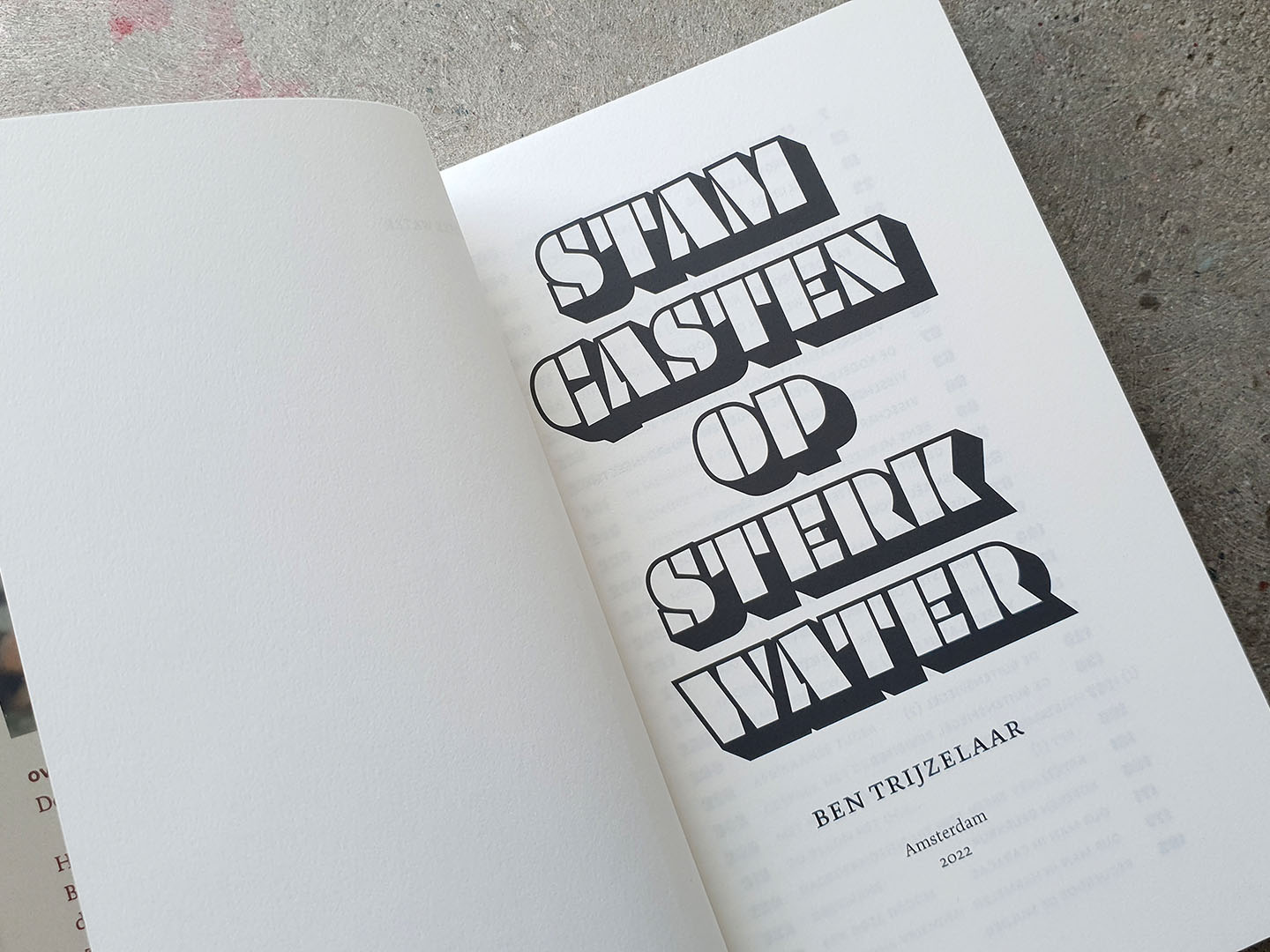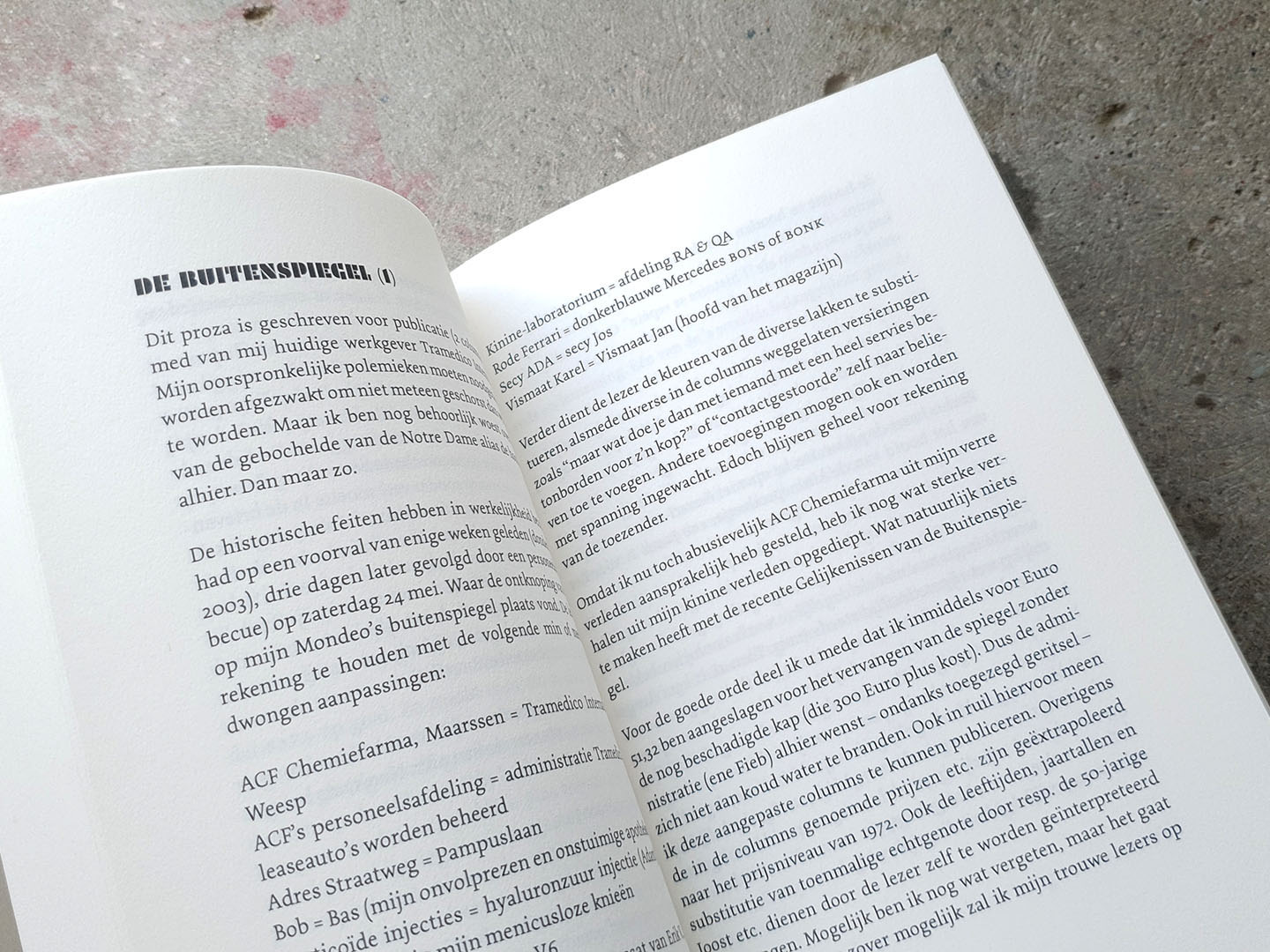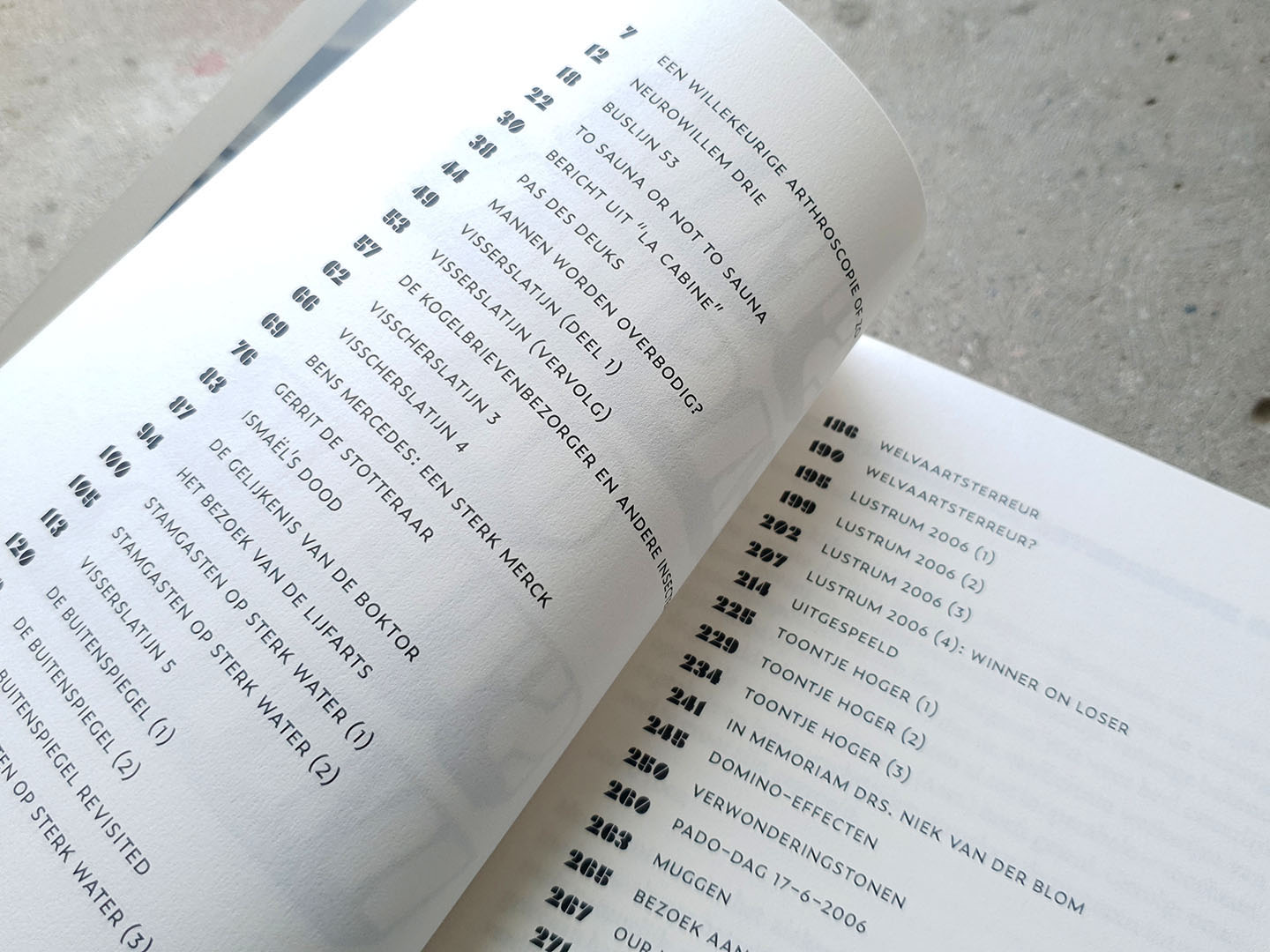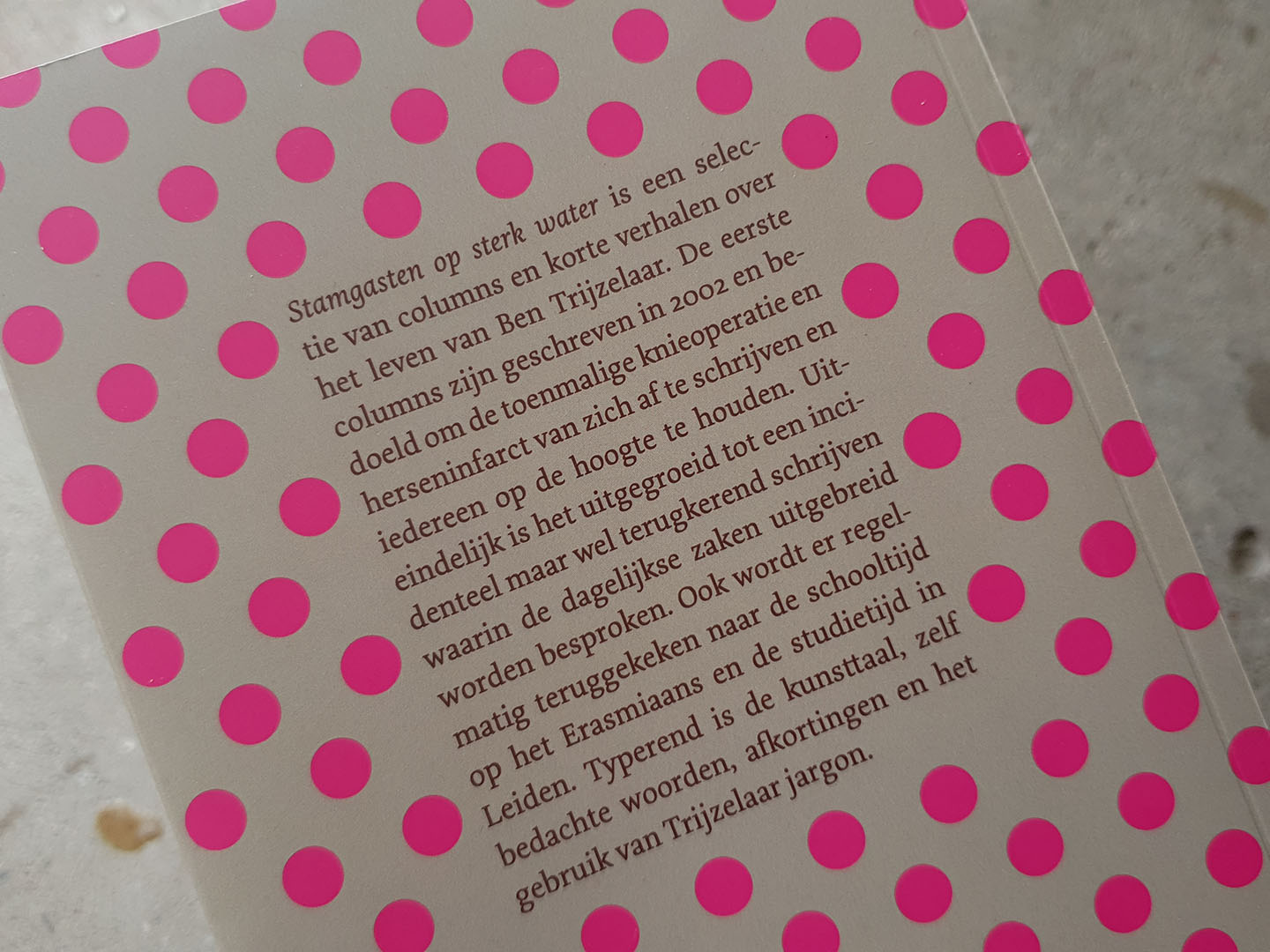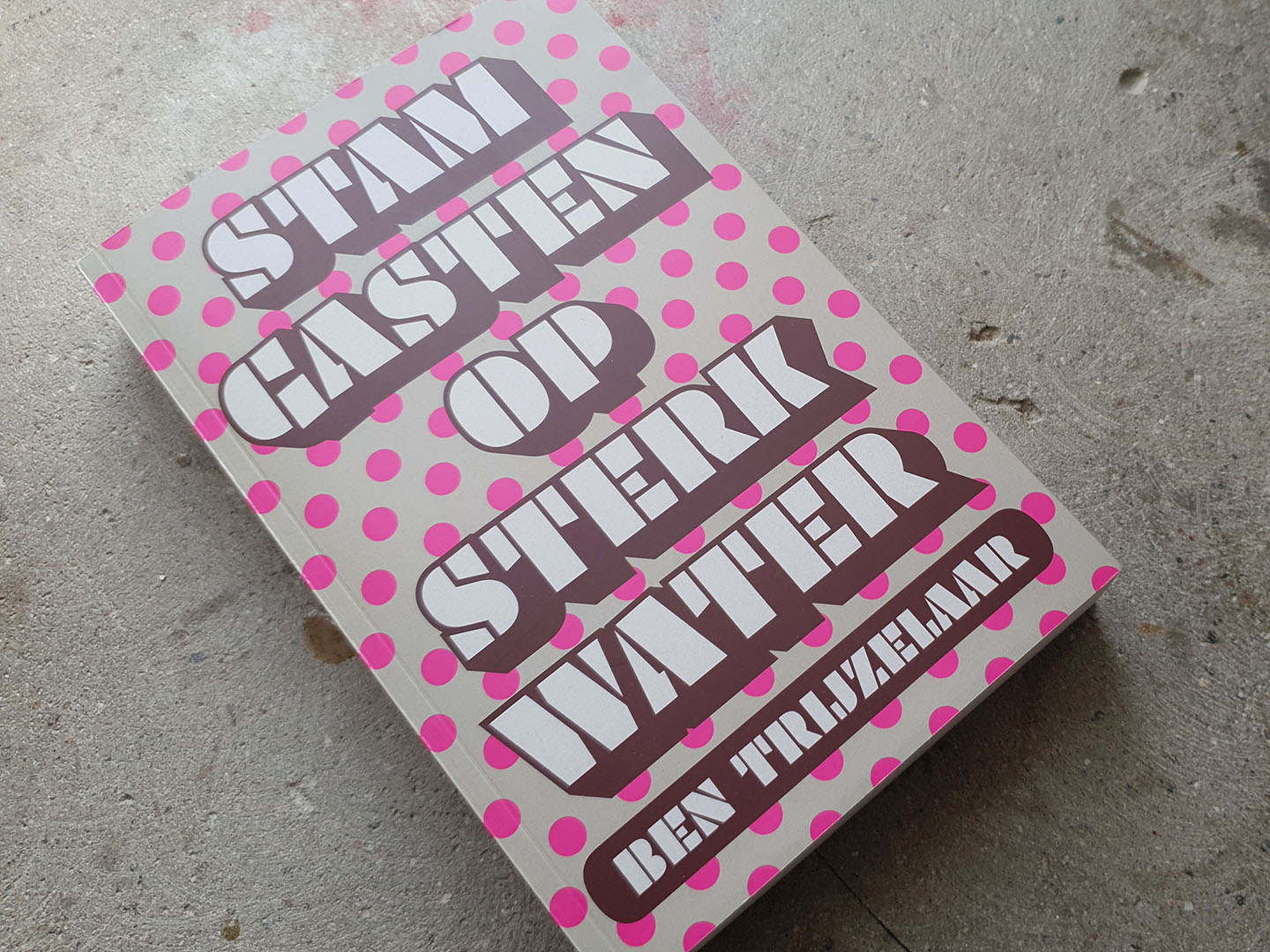
Plakato 3D & Plakato Stencil joining display forces for the book cover of Ben Trijzelaar’s Stamgasten op sterk water. In the interior Plakato’s headlines are supported by Dolly as a text typeface, and Zeitung for all caps settings, making a 350 page longread of personal observations by the author.
Stamgasten op sterk water